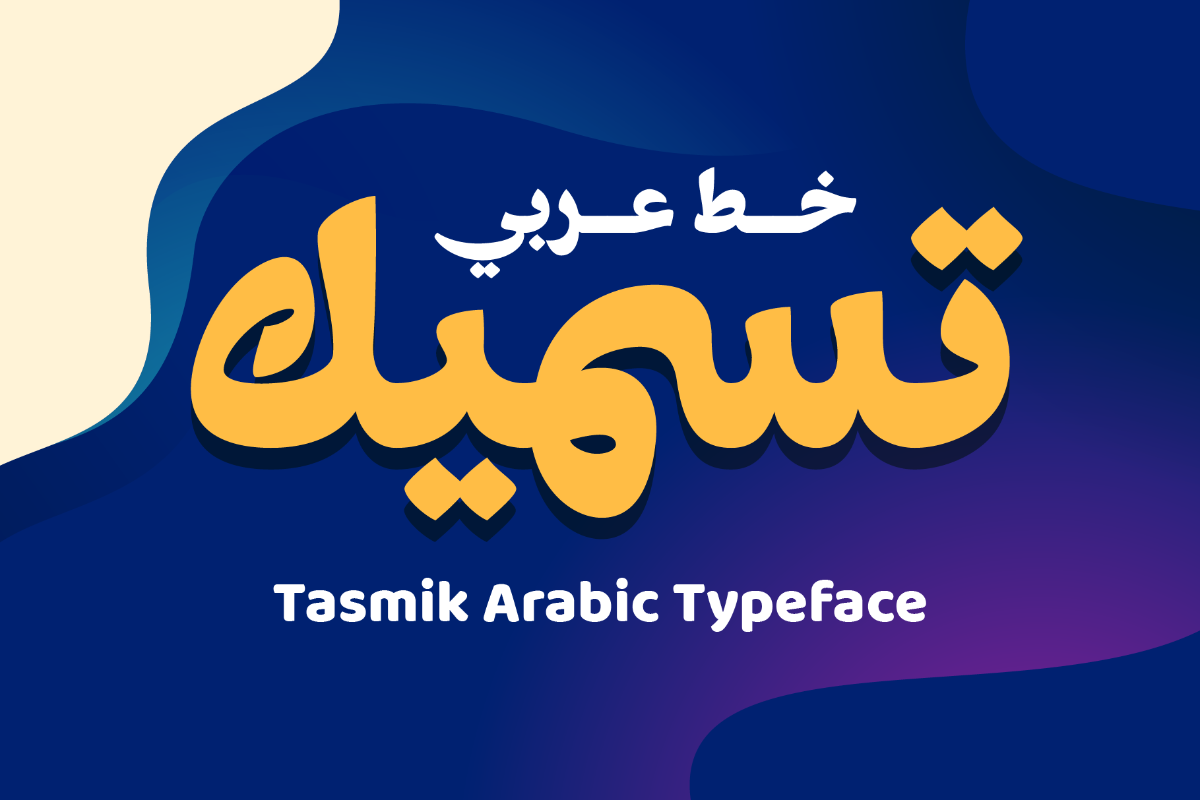
Tasmik Arabic Regular
Tasmik Arabic Font - A Naskh-Inspired Arabic Display Typeface for Headline & ePub The most compelling modern Arabic typefaces don’t abandon their heritage—they reinterpret it with clarity and purpose. Tasmik Naskh-Inspired Arabic Display Font from Namelatype draws from the elegance and readability of classical Naskh calligraphy, refining it into a clean and confident Arabic display font. Built for headlines, branding, and visual communication, Tasmik balances cultural depth with modern clarity.